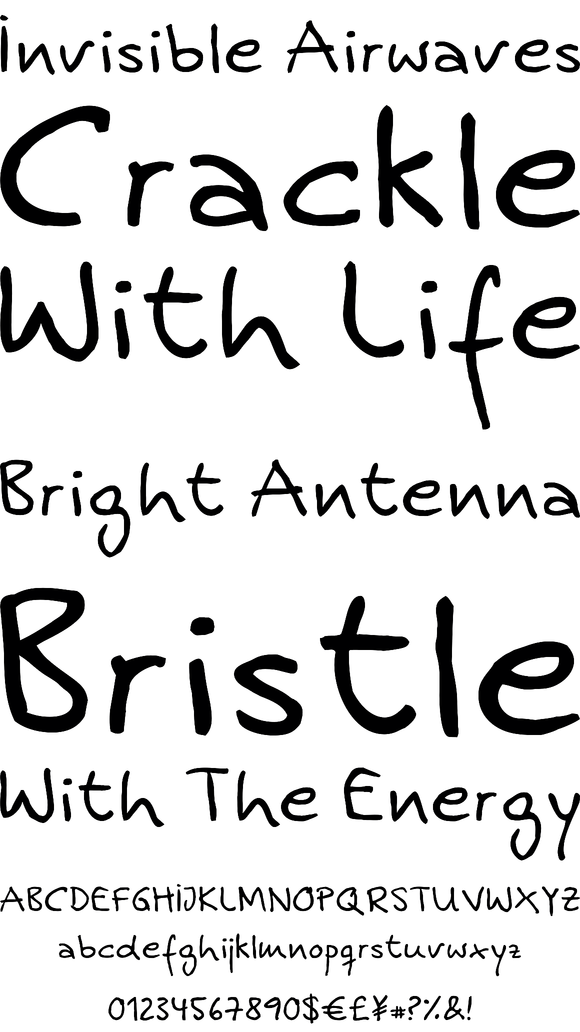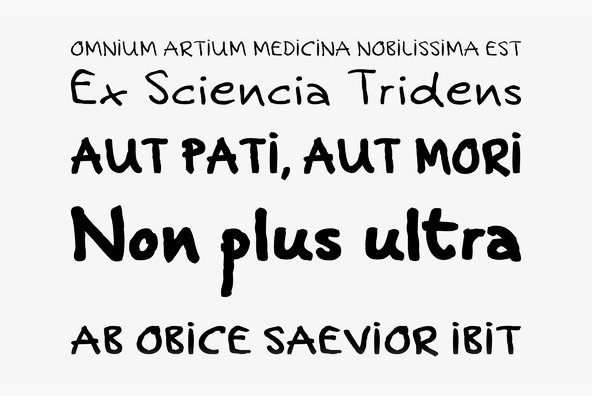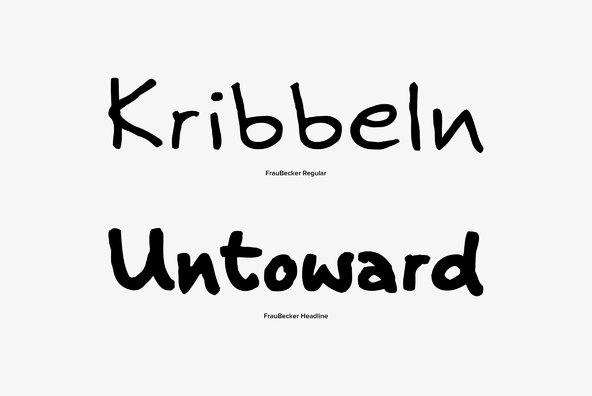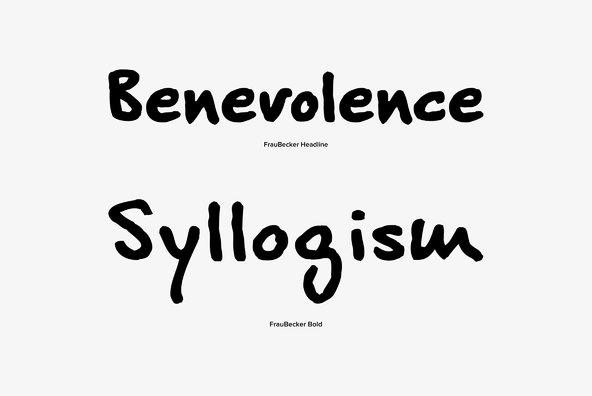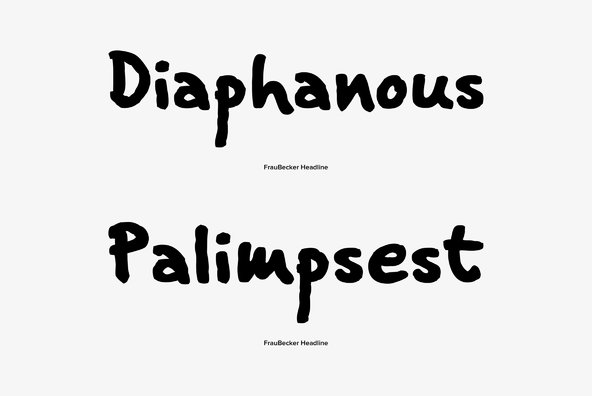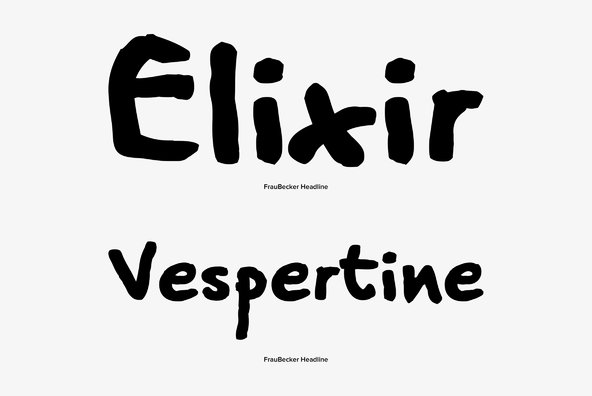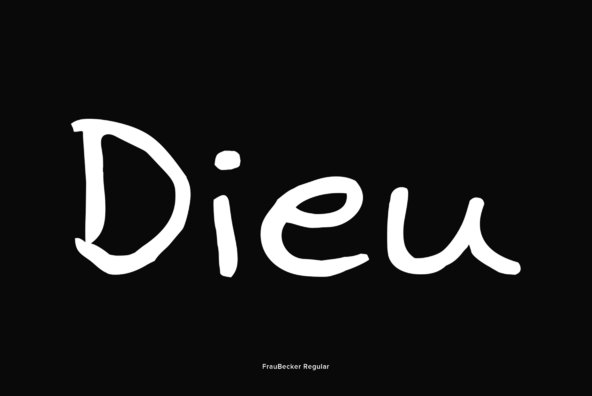
Frau Becker
Frau Becker is a very dynamic and readable handwriting script that looks great in text sizes. It is a self-confident, expressive and strong character design. How old is Frau Becker? Is she an insurance agent, a surgeon or a designer? We do not know exactly but one thing is for sure: she can be found at any place where special, high-end design in conjunction with a reliable typographic basis is demanded, e.g. for posters, books, ad campaigns or magazines. Frau Becker is different from all other classical scripts - it is outstanding! Due its excellent readability, it is a precious and exceptional text font with styles as regular, bold, and Headline (bold condensed). The character set includes Basic Latin, Basic Latin 1, Latin Eastern Europe, small caps, plenty of ligatures, old style figures, index figures, and some special characters including a skull.